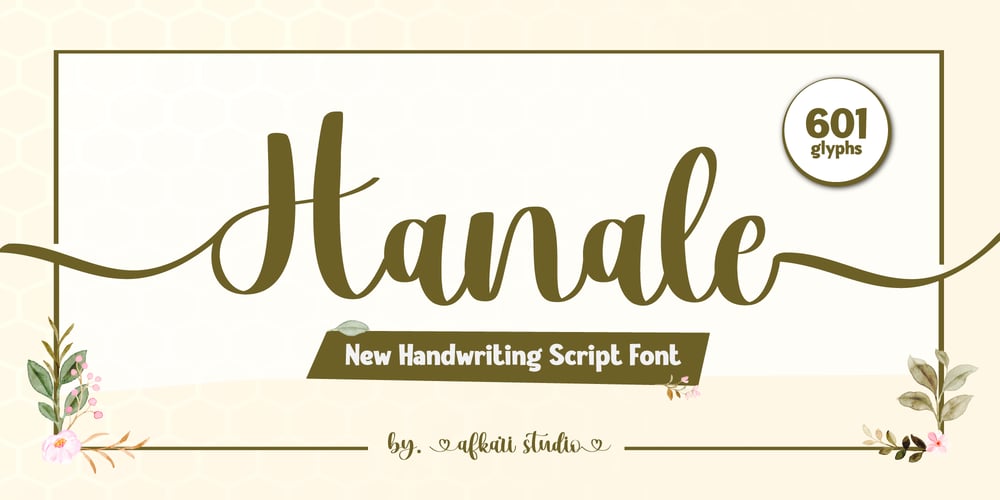
Hanale Font Family was designed by Musthafa Kamal Emje and published by Afkari Studio. Hanale contains 1 styles and family package options. Hanale Handwritten Script Font is a Handwriting Font script that makes with natural line handwriting. This font is suitable for any branding of your design needs, wedding invitations, romantic project, studio brand, logos, invitations, social media posts, clothing, invitation, poster, cafe/resto sign and others.Features;- Uppercase, Lowercase, Number, and Punctuation- Special Ligatures – Beginning and Ending Swashes- Works on PC & Mac- Simple installations- Accessible in Adobe Illustrator, Adobe Photoshop, Adobe InDesign, and even work on Microsoft Word- Fully accessible without additional design software.- Mültîlíñgúãl Sùppört for; ä ö ü Ä Ö Ü ß ¿ ¡ etc.Hope you enjoy our font and this font is useful for your projects!